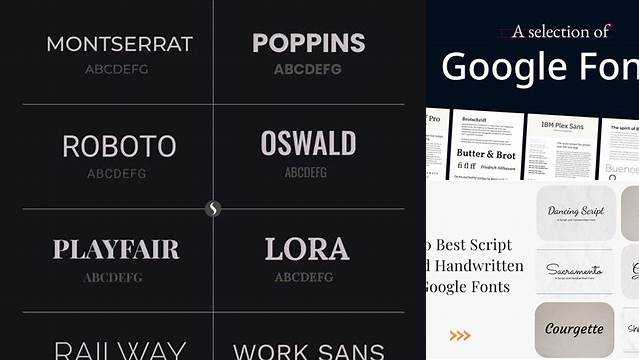
Top Google Fonts For Standout Packaging Design
Choosing the right font for your packaging can make or break your product's appeal. With countless options available, selecting the best google fonts for packaging can feel overwhelming. This article will guide you through the top Google Fonts that will help your product stand out on the shelves. We'll explore various styles, from modern and minimalist to classic and elegant, ensuring you find the perfect fit for your brand.
H2: Understanding the Importance of Font Choice in Packaging
Guys, let's dive into why font choice is so critical in packaging. Think about it: your packaging is often the first thing a potential customer sees. The font you use communicates your brand's personality and values at a glance. A well-chosen font can convey trustworthiness, sophistication, playfulness, or any other emotion you want to evoke. Conversely, a poorly chosen font can make your product look cheap, outdated, or confusing. Imagine a high-end skincare product with a Comic Sans-esque font â it just wouldn't work, right? The best google fonts for packaging are those that align with your brand identity, are legible, and appeal to your target audience. Consider factors like the product's purpose, target demographic, and overall brand aesthetic when making your selection. Furthermore, ensure the font is readable in various sizes and formats, from the front label to the ingredients list on the back. The goal is to create a cohesive and visually appealing package that grabs attention and communicates effectively.
H2: Best Sans-Serif Google Fonts for Modern Packaging
Sans-serif fonts are often the go-to choice for modern packaging designs. They're clean, minimalist, and highly legible, making them ideal for conveying a sense of sophistication and clarity. When seeking the best google fonts for packaging that embody a modern aesthetic, consider options like Montserrat, Open Sans, and Lato. Montserrat is a versatile font with a geometric design that works well for headlines and body text alike. Its clean lines and balanced proportions make it a popular choice for a wide range of products. Open Sans is another excellent option, known for its neutrality and readability. It's a great choice for packaging that requires a lot of text, such as nutritional information or instructions. Lato is a slightly warmer sans-serif font that adds a touch of personality while still maintaining a modern feel. When using sans-serif fonts, pay attention to the weight and spacing. A bolder weight can help your product stand out on the shelf, while proper letter spacing ensures readability. Experiment with different combinations to find the perfect balance for your brand.
H2: Top Serif Google Fonts for Classic Packaging Designs
For packaging designs that aim for a classic and timeless feel, serif fonts are your best bet. These fonts, characterized by their small decorative strokes (serifs) at the end of each letter, evoke a sense of tradition, elegance, and sophistication. When searching for the best google fonts for packaging with a classic touch, consider options like Playfair Display, Merriweather, and Libre Baskerville. Playfair Display is a high-contrast serif font that exudes sophistication and is perfect for luxury products or brands that want to convey a sense of exclusivity. Merriweather is a more versatile serif font that works well for both headlines and body text. Its slightly condensed design makes it a great choice for packaging with limited space. Libre Baskerville is a classic serif font that is highly legible and timeless. It's a great choice for packaging that needs to convey a sense of trust and reliability. When using serif fonts, be mindful of the line height and letter spacing to ensure readability. A slightly wider line height can improve readability, while proper letter spacing prevents the text from looking too cramped.
H2: Creative Display Google Fonts for Eye-Catching Packaging
If you're looking to create packaging that really pops, consider using a display font. These fonts are designed to be attention-grabbing and are often used for headlines or logos. While they may not be suitable for body text due to their often intricate designs, they can add a unique and memorable touch to your packaging. When seeking the best google fonts for packaging for a bold and creative statement, explore options like Lobster, Pacifico, and Bebas Neue. Lobster is a script font that adds a touch of retro charm to any design. It's perfect for products that want to convey a sense of fun and nostalgia. Pacifico is another script font that has a more casual and hand-lettered feel. It's a great choice for products that want to convey a sense of warmth and authenticity. Bebas Neue is a tall and condensed sans-serif font that is perfect for headlines. Its bold and modern design makes it a great choice for products that want to stand out on the shelf. When using display fonts, use them sparingly and pair them with a more legible font for body text. The key is to create a balance between visual appeal and readability.
H2: Pairing Google Fonts for Harmonious Packaging Design
The key to a successful packaging design is often the harmonious pairing of fonts. Choosing the right font combinations can elevate your design and create a cohesive brand identity. When considering the best google fonts for packaging, it's essential to think about how different fonts complement each other. A classic pairing is a serif font for headlines and a sans-serif font for body text. For example, you could pair Playfair Display with Montserrat or Merriweather with Open Sans. Another approach is to use different weights and styles of the same font family. For example, you could use Montserrat Bold for headlines and Montserrat Regular for body text. This creates a sense of visual hierarchy while maintaining a consistent brand identity. Experiment with different combinations and see what works best for your brand. Tools like FontPair can help you discover popular and effective Google Font pairings. Remember to prioritize readability and ensure that the fonts you choose complement each other visually.
H3: Montserrat: A Versatile Sans-Serif for Modern Brands
Montserrat is a geometric sans-serif typeface that has become incredibly popular in recent years, and for good reason. Its clean lines, balanced proportions, and overall versatility make it an excellent choice for a wide range of packaging applications. As one of the best google fonts for packaging, Montserrat works exceptionally well for modern brands seeking a clean and sophisticated look. Whether you're designing packaging for cosmetics, food products, or technology, Montserrat can lend a sense of professionalism and clarity. Consider using Montserrat for headlines, subheadings, and body text to maintain a consistent brand identity across your packaging. The various weights available, from thin to black, provide ample flexibility for creating visual hierarchy and emphasizing key information. Experiment with different letter spacing and line heights to optimize readability, especially when dealing with longer blocks of text. Montserrat pairs well with both serif and sans-serif fonts, making it a versatile option for creating visually appealing and effective packaging designs.
H3: Open Sans: The Go-To Choice for Readability on Packaging
Open Sans is a humanist sans-serif typeface designed by Steve Matteson. Its open forms and neutral appearance make it incredibly legible, even in small sizes, which is crucial for packaging that often requires conveying a lot of information in a limited space. Considered among the best google fonts for packaging that prioritize readability, Open Sans is a solid choice for ingredients lists, nutritional information, and instructions. Its clean and unobtrusive design ensures that the focus remains on the product itself, rather than the font. Open Sans is also highly versatile and can be used effectively in a variety of packaging designs, from minimalist to more complex layouts. Pair it with a bolder display font for headlines to create visual contrast and draw attention to key product features. Its wide range of language support also makes it a practical choice for brands that market their products internationally. When legibility is paramount, Open Sans is a reliable and effective option.
H3: Lato: A Warm and Friendly Sans-Serif Option
Lato is a sans-serif typeface designed by Ĺukasz Dziedzic. It strikes a unique balance between being modern and approachable, making it an excellent choice for brands that want to convey a sense of warmth and friendliness. As one of the best google fonts for packaging that balances modernity with approachability, Lato is particularly well-suited for food products, personal care items, and products targeting a younger audience. Its semi-rounded details add a touch of personality without sacrificing readability. Lato is available in a wide range of weights, providing ample flexibility for creating visual hierarchy and emphasizing key information. Use the bolder weights for headlines and subheadings and the lighter weights for body text. Its clean and contemporary design ensures that your packaging looks professional and inviting. Lato also pairs well with a variety of other fonts, both serif and sans-serif, making it a versatile option for creating visually appealing and effective packaging designs. Consider Lato when you want your packaging to feel friendly and approachable.
H3: Playfair Display: Adding Elegance to Luxury Packaging
Playfair Display is a transitional serif typeface designed by Claus Eggers Sørensen. Its high contrast and delicate serifs make it an excellent choice for luxury packaging designs. When seeking the best google fonts for packaging that exude elegance and sophistication, Playfair Display is a top contender. This font is particularly well-suited for cosmetics, perfumes, and other high-end products. Its elegant and refined appearance adds a touch of class to any packaging design. Use Playfair Display sparingly, primarily for headlines and logos, as its delicate serifs may become less legible in smaller sizes. Pair it with a clean and simple sans-serif font for body text to maintain readability. Consider using a lighter weight of Playfair Display for a more delicate and refined look or a bolder weight for a more dramatic effect. When used effectively, Playfair Display can elevate your packaging design and convey a sense of luxury and exclusivity.
H3: Merriweather: A Versatile Serif for Various Packaging Needs
Merriweather is a serif typeface designed by Sorkin Type. It is specifically designed for on-screen readability, making it a great option for packaging that may be viewed online or in digital mockups. As one of the best google fonts for packaging that offers excellent readability and versatility, Merriweather is suitable for a wide range of products. Its robust design and slightly condensed letterforms make it a practical choice for packaging with limited space. Use Merriweather for both headlines and body text to maintain a consistent brand identity. The various weights available provide ample flexibility for creating visual hierarchy and emphasizing key information. Experiment with different letter spacing and line heights to optimize readability, especially when dealing with longer blocks of text. Merriweather pairs well with both serif and sans-serif fonts, making it a versatile option for creating visually appealing and effective packaging designs. Consider Merriweather when you need a reliable and readable serif font for your packaging.
H3: Libre Baskerville: A Timeless Classic for Trustworthy Brands
Libre Baskerville is a serif typeface designed by Impallari Type. It is a revival of the classic Baskerville typeface, known for its elegance and readability. When looking for the best google fonts for packaging that evoke a sense of tradition and trustworthiness, Libre Baskerville is a strong contender. This font is particularly well-suited for products that want to convey a sense of reliability and quality, such as pharmaceuticals, financial services, or educational materials. Its timeless design ensures that your packaging will look professional and credible. Use Libre Baskerville for both headlines and body text to maintain a consistent brand identity. Pay attention to letter spacing and line height to optimize readability, especially in smaller sizes. Pair it with a simple sans-serif font for a modern touch. Libre Baskerville is a timeless classic that will add a touch of elegance and trustworthiness to your packaging design.
H3: Lobster: Adding a Retro Flair to Your Packaging
Lobster is a script typeface designed by Pablo Impallari. Its bold and retro style makes it a great choice for packaging that wants to evoke a sense of nostalgia or fun. As one of the best google fonts for packaging that adds a touch of retro charm, Lobster is particularly well-suited for food products, beverages, and other products that want to convey a sense of personality. Use Lobster sparingly, primarily for headlines or logos, as its intricate design may become less legible in smaller sizes. Pair it with a clean and simple sans-serif font for body text to maintain readability. Consider using a lighter weight of Lobster for a more delicate and refined look or a bolder weight for a more dramatic effect. When used effectively, Lobster can add a unique and memorable touch to your packaging design.
H3: Pacifico: A Casual and Friendly Script Font
Pacifico is a script typeface designed by Vernon Adams. Its casual and friendly style makes it a great choice for packaging that wants to convey a sense of warmth and authenticity. Considered among the best google fonts for packaging that offers a friendly and approachable vibe, Pacifico is particularly well-suited for handmade products, artisanal goods, and products targeting a younger audience. Its hand-lettered feel adds a personal touch to any packaging design. Use Pacifico sparingly, primarily for headlines or logos, as its cursive design may become less legible in smaller sizes. Pair it with a clean and simple sans-serif font for body text to maintain readability. Pacifico is a great choice when you want your packaging to feel welcoming and authentic.
H3: Bebas Neue: A Bold and Modern Headline Font
Bebas Neue is a sans-serif typeface designed by Ryoichi Tsunekawa. Its tall and condensed style makes it a great choice for headlines and other display purposes. When seeking the best google fonts for packaging for a bold and modern statement, Bebas Neue is an excellent option. Its clean lines and geometric forms make it particularly well-suited for contemporary packaging designs. Use Bebas Neue for headlines and subheadings to grab attention and create visual impact. Pair it with a more legible font for body text to ensure readability. Bebas Neue is a versatile font that can be used in a variety of packaging designs, from minimalist to more complex layouts. Its bold and modern design will help your product stand out on the shelf.
H3: Roboto: A Modern Classic for Digital-Friendly Packaging
Roboto is a sans-serif typeface designed by Christian Robertson. It was developed by Google as the system font for Android, and its widespread use has made it a modern classic. As one of the best google fonts for packaging that offers excellent readability and a contemporary feel, Roboto is a solid choice for brands that want to convey a sense of innovation and technology. Its clean lines and geometric forms make it particularly well-suited for packaging designs that will be viewed online or in digital mockups. Use Roboto for both headlines and body text to maintain a consistent brand identity. The various weights available provide ample flexibility for creating visual hierarchy and emphasizing key information. Roboto pairs well with a variety of other fonts, both serif and sans-serif, making it a versatile option for creating visually appealing and effective packaging designs. Consider Roboto when you need a reliable and modern font for your packaging.
H3: Oswald: A Condensed Sans-Serif for Space-Saving Designs
Oswald is a sans-serif typeface designed by Vernon Adams. Its condensed proportions make it a great choice for packaging designs where space is limited. When considering the best google fonts for packaging that maximize space without sacrificing readability, Oswald is a practical solution. This font is particularly well-suited for food products, beverages, and other products that require a lot of information to be displayed in a small area. Use Oswald for headlines, subheadings, and body text to maintain a consistent brand identity. Its clean and modern design ensures that your packaging looks professional and organized. Oswald also pairs well with a variety of other fonts, both serif and sans-serif, making it a versatile option for creating visually appealing and effective packaging designs.
H3: Raleway: An Elegant and Geometric Sans-Serif
Raleway is a sans-serif typeface originally designed by Matt McInerney as a single thin weight. It was later expanded into a full family by Pablo Impallari and Rodrigo Fuenzalida. Its elegant and geometric design makes it a great choice for packaging that wants to convey a sense of sophistication and style. As one of the best google fonts for packaging that combines elegance with a modern edge, Raleway is particularly well-suited for cosmetics, fashion accessories, and other high-end products. Use Raleway sparingly, primarily for headlines or logos, as its thin weights may become less legible in smaller sizes. Pair it with a bolder sans-serif font for body text to maintain readability. Raleway is a great choice when you want your packaging to feel stylish and sophisticated.
H3: Ubuntu: A Humanist Font with a Unique Personality
Ubuntu is a sans-serif typeface designed by Dalton Maag. It was created as the font for the Ubuntu operating system and has a distinctive humanist style. When seeking the best google fonts for packaging that offer a unique personality and a touch of warmth, Ubuntu is a compelling option. This font is particularly well-suited for products that want to convey a sense of community or social responsibility. Its slightly rounded terminals and open forms give it a friendly and approachable feel. Use Ubuntu for both headlines and body text to maintain a consistent brand identity. Pay attention to letter spacing and line height to optimize readability, especially in smaller sizes. Ubuntu is a great choice when you want your packaging to feel friendly, approachable, and socially conscious.
H3: Montserrat Alternates: A Variation for Unique Designs
Montserrat Alternates offers a stylistic variation of the popular Montserrat font. This alternative version provides distinct letterforms that can add a unique touch to your packaging design. For those seeking the best google fonts for packaging but desire a slight variation on a well-known theme, Montserrat Alternates offers an excellent solution. Its subtle differences can help your packaging stand out while maintaining a consistent brand identity with the original Montserrat. Use Montserrat Alternates for headlines, subheadings, or even body text to create a subtle visual distinction. Experiment with different letter combinations to see how the alternates can enhance your design. Montserrat Alternates is a great choice when you want to add a touch of individuality to your packaging.
H3: Source Sans Pro: An Open-Source Font for Technical Products
Source Sans Pro is a sans-serif typeface designed by Paul D. Hunt for Adobe Systems. It is an open-source font designed specifically for user interfaces and is highly legible on screens. As one of the best google fonts for packaging designed for optimal readability, Source Sans Pro is a great option for technical products, software packaging, or products with a strong digital presence. Its clean lines and clear letterforms ensure that your packaging information is easily readable, even in small sizes. Use Source Sans Pro for ingredients lists, instructions, and other text-heavy elements of your packaging. Its neutral appearance ensures that the focus remains on the product itself. Source Sans Pro is a reliable and practical choice for technical products.
H3: PT Sans: A Russian Font with International Appeal
PT Sans is a sans-serif typeface designed by ParaType. It was created as part of the Public Types of Russian Federation project and is widely used in Russia and other countries. When considering the best google fonts for packaging with international appeal, PT Sans is a solid option. Its clean lines and neutral appearance make it suitable for a wide range of products and markets. Use PT Sans for both headlines and body text to maintain a consistent brand identity. Its wide language support ensures that your packaging will be legible in a variety of languages. PT Sans is a versatile and reliable choice for brands that market their products internationally.
H3: Arvo: A Slab-Serif Font for a Strong Impression
Arvo is a slab-serif typeface designed by Anton Koovit. Its geometric design and strong serifs make it a great choice for packaging that wants to convey a sense of strength and reliability. As one of the best google fonts for packaging that makes a bold statement, Arvo is particularly well-suited for products that want to project an image of durability and trustworthiness. Use Arvo sparingly, primarily for headlines or logos, as its strong serifs may become less legible in smaller sizes. Pair it with a clean and simple sans-serif font for body text to maintain readability. Arvo is a great choice when you want your packaging to make a strong and lasting impression.
H3: Bitter: A Robust Serif for Long-Form Text
Bitter is a serif typeface designed by Sol Matas. It is specifically designed for readability on screens and is well-suited for long-form text. When seeking the best google fonts for packaging that offer excellent readability for lengthy text passages, Bitter is an excellent choice. This font is particularly well-suited for products that require detailed descriptions or instructions on their packaging. Use Bitter for body text and other text-heavy elements of your packaging. Its robust design ensures that your text is easily readable, even in small sizes. Pair it with a bolder sans-serif font for headlines to create visual contrast. Bitter is a reliable and practical choice for packaging with long-form text.
H3: Lora: A Well-Balanced Serif for a Modern Feel
Lora is a serif typeface designed by Olga Karpushina. It is a well-balanced font with roots in calligraphy, making it a great choice for packaging that wants to convey a sense of sophistication and modernity. When considering the best google fonts for packaging that strike a balance between tradition and modernity, Lora is a compelling option. This font is particularly well-suited for products that want to appeal to a wide range of consumers. Use Lora for both headlines and body text to maintain a consistent brand identity. Its elegant design and excellent readability make it a versatile choice for a variety of packaging applications.
H3: Nunito: A Rounded Sans-Serif for a Friendly Vibe
Nunito is a sans-serif typeface designed by Vernon Adams. Its rounded terminals give it a friendly and approachable feel, making it a great choice for packaging that wants to convey a sense of warmth and playfulness. As one of the best google fonts for packaging that exudes friendliness, Nunito is particularly well-suited for products targeting children or families. Use Nunito for headlines, subheadings, and body text to create a consistent brand identity. Its clean and simple design ensures that your packaging is easy to read and understand. Nunito is a great choice when you want your packaging to feel welcoming and approachable.
H3: Poppins: A Geometric Sans-Serif with Global Appeal
Poppins is a geometric sans-serif typeface designed by Jonny Pinhorn and Indian Type Foundry. It supports the Devanagari and Latin alphabets and is gaining popularity for its clean and modern design. When considering the best google fonts for packaging with global appeal, Poppins is an excellent option. Its geometric forms and neutral appearance make it suitable for a wide range of products and markets. Use Poppins for both headlines and body text to maintain a consistent brand identity. Its wide language support ensures that your packaging will be legible in a variety of languages. Poppins is a versatile and reliable choice for brands that market their products internationally.
H3: Caveat: A Hand-Drawn Font for a Personal Touch
Caveat is a handwriting font designed by Pablo Impallari and Rodrigo Fuenzalida. Its natural and informal style makes it a great choice for packaging that wants to convey a personal and authentic touch. When seeking the best google fonts for packaging for that handmade or artisanal feel, Caveat is a unique and charming option. Use Caveat sparingly, primarily for headlines or logos, as its handwriting style may become less legible in smaller sizes. Pair it with a clean and simple sans-serif font for body text to maintain readability. Caveat is a great choice when you want your packaging to feel personal and authentic.
H3: Permanent Marker: A Bold and Playful Handwritten Font
Permanent Marker is a handwritten font designed by Font Diner. Its bold and playful style makes it a great choice for packaging that wants to grab attention and convey a sense of fun. As one of the best google fonts for packaging to inject personality and playfulness, Permanent Marker is particularly well-suited for products targeting children or those with a youthful spirit. Use Permanent Marker sparingly, primarily for headlines or logos, as its bold style may be overwhelming in larger amounts of text. Pair it with a clean and simple sans-serif font for body text to maintain readability. Permanent Marker is a great choice when you want your packaging to be memorable and fun.
H3: Choosing the Right Font Weight and Style
Selecting the appropriate font weight and style is paramount in achieving effective and visually appealing packaging. Beyond simply choosing the typeface itself, factors like bold, italic, light, and condensed versions play a crucial role in readability and overall design harmony. Determining the best google fonts for packaging often involves considering the specific context of use. For instance, headlines might benefit from a bolder weight to capture attention, while body text requires a lighter, more legible weight. Italic styles can be used for emphasis or to create a visual hierarchy within the text. Condensed styles are useful for fitting more text into limited spaces, but should be used sparingly to avoid compromising readability. Experiment with different font weights and styles to find the perfect balance for your packaging design, ensuring that the text is both visually appealing and easily readable.
H3: Ensuring Font Legibility on Different Packaging Materials
Font legibility is a critical factor often overlooked when designing packaging. The type of material used for your packaging can significantly impact how the font appears. What looks crisp and clear on a computer screen might appear blurry or distorted when printed on certain materials like corrugated cardboard or textured paper. Discovering the best google fonts for packaging involves a practical understanding of how different fonts interact with various materials. Matte surfaces tend to absorb ink, potentially making thin fonts appear even lighter and harder to read. Glossy surfaces, on the other hand, can cause glare, making it difficult to read fonts with fine details. Always test your font choices on the actual packaging material before finalizing your design. Consider using thicker font weights or adjusting the letter spacing to improve legibility on challenging materials. Proper preparation and testing are key to ensuring that your packaging remains readable and effective.
H3: Using Google Fonts for International Packaging Designs
When designing packaging for international markets, choosing fonts that support multiple languages is essential. While Google Fonts offers a vast library of typefaces, not all of them support the character sets required for languages like Chinese, Japanese, or Korean. Identifying the best google fonts for packaging designed for international markets requires careful consideration of language support. Ensure that the fonts you choose include glyphs for all the languages you plan to use on your packaging. Google Fonts provides information about the language support for each font, so be sure to check this before making your selection. Consider using a font family that offers different styles for different languages, such as a Latin-based font for English and a separate font for Asian languages. This can help maintain visual consistency while ensuring readability in each language. By carefully considering language support, you can create packaging that is both visually appealing and culturally appropriate.
H3: Legal Considerations for Using Google Fonts on Packaging
Before using any font on your packaging, it's crucial to understand the licensing terms. While Google Fonts are generally free to use, it's essential to be aware of any restrictions or requirements. The best google fonts for packaging are not only aesthetically pleasing but also legally compliant. Most Google Fonts are licensed under the SIL Open Font License (OFL), which allows you to use, modify, and distribute the fonts freely, even for commercial purposes. However, it's always a good idea to double-check the license for each font you use to ensure that you're complying with the terms. Some fonts may require you to include attribution to the font designer. Failure to comply with the licensing terms can result in legal issues. By taking the time to understand the licensing terms, you can ensure that you're using Google Fonts legally and ethically.
H3: Tools and Resources for Finding the Perfect Google Font
Finding the perfect Google Font for your packaging can be a daunting task, given the sheer number of options available. Fortunately, there are several tools and resources that can help you narrow down your choices and discover the ideal typeface for your brand. As you explore the best google fonts for packaging, consider utilizing online font pairing tools that suggest harmonious font combinations. Websites like FontPair and Canva's Font Combinations provide inspiration and recommendations for pairing different Google Fonts. Additionally, Google Fonts itself offers a variety of filters and search options to help you find fonts based on specific criteria, such as style, weight, and language support. Consider using font management software to organize and preview your font collection. By leveraging these tools and resources, you can streamline your font selection process and find the perfect Google Font for your packaging design.